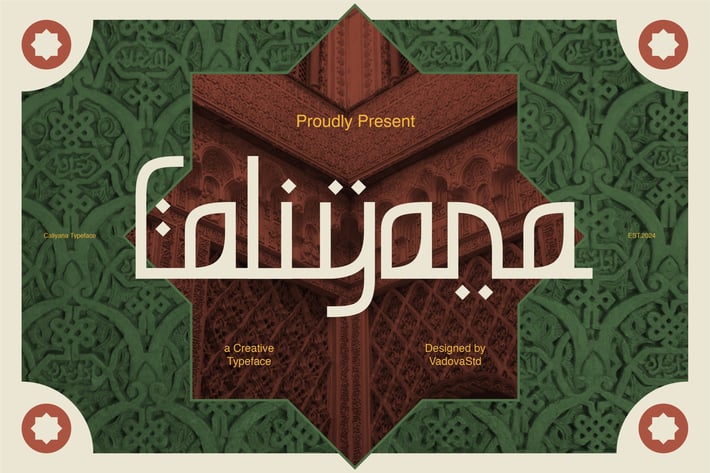
Caliyana Creative Typeface
Caliyana Arabic Display Font is a modern display typeface inspired by Arabic calligraphy and traditional Islamic architecture. Designed with stylized Latin characters that echo the shapes of Arabic script, Callyana offers a seamless blend of cultural depth and modern design. Ideal for Ramadan and Eid designs, Islamic events, Middle Eastern branding, or mosque-related posters, this font exudes spiritual elegance. Its distinct ligatures and geometric flow bring a sophisticated touch to logotypes, packaging, signage, and creative editorial projects.
Main Features
Uppercase & Lowercase characters
Includes Ligatures & Alternates
Numeral & Punctuations
* Multilingual Support